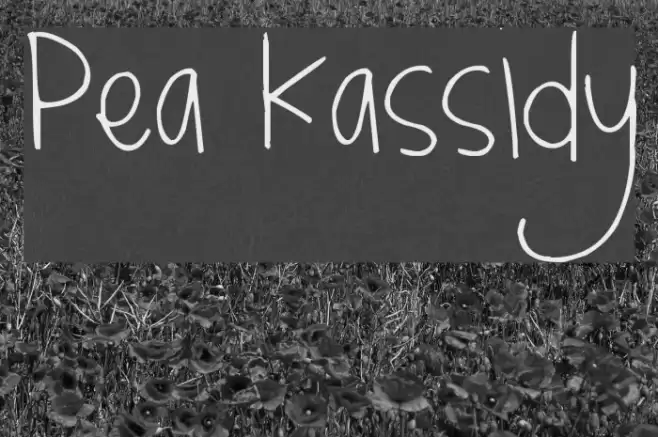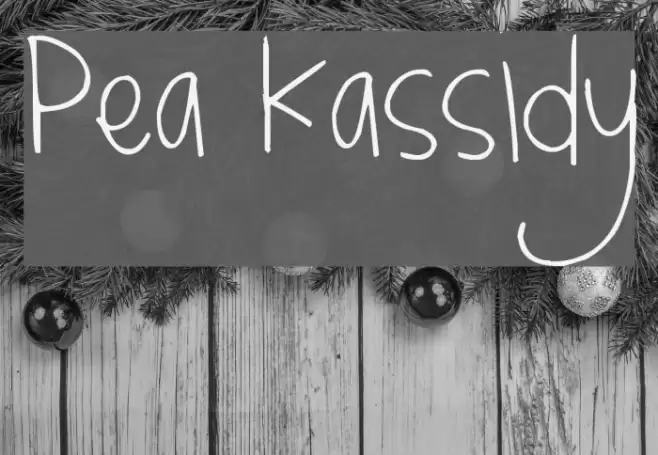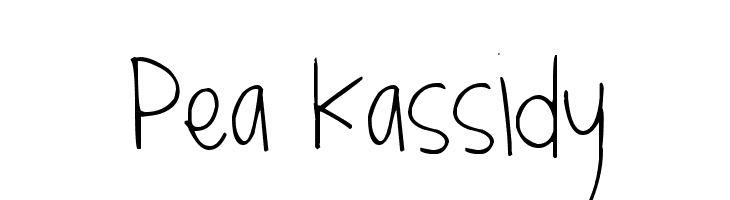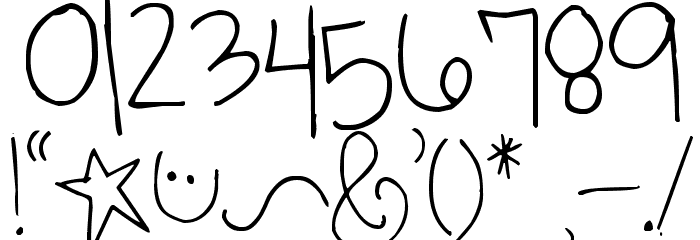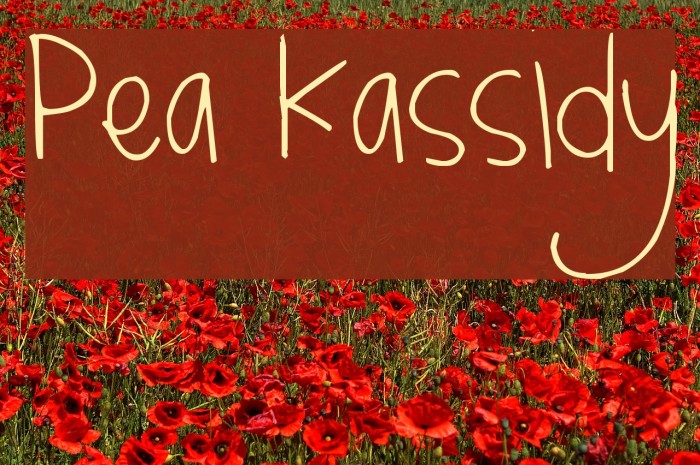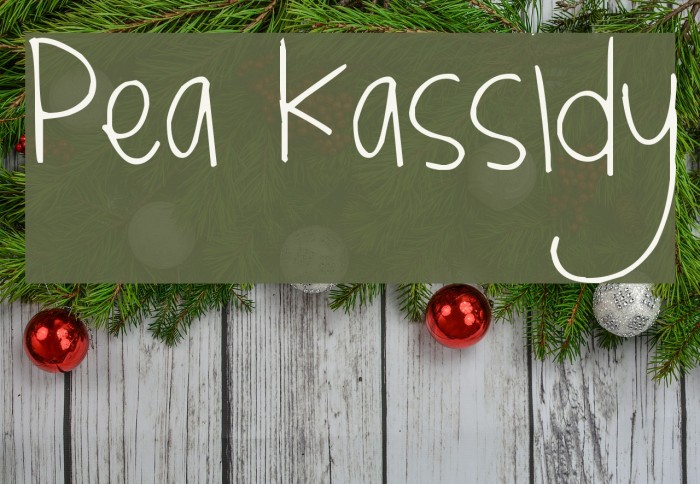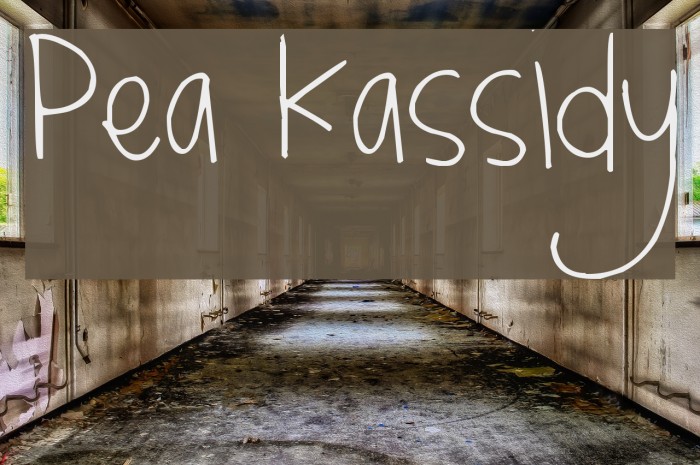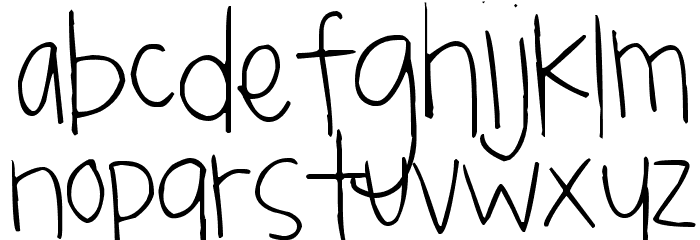
Pea Kassidy Font
Pea Kassidy Description
This playful and casual handwritten font features a whimsical and informal style, with each character exhibiting a unique and slightly irregular shape. The letters are tall and narrow, giving a sense of height and lightness. The strokes are consistent in width, providing a uniform appearance despite the hand-drawn aesthetic. The font includes both uppercase and lowercase letters, numbers, and a variety of special characters, making it versatile for different uses. Its charming and friendly appearance makes it ideal for projects that require a personal touch.
A playful, handwritten font with a whimsical and informal style from Uncategorized fonts.
- Proposed Projects: Ideal for greeting cards, children's books, personal blogs, and casual branding.
- Overall Style: Casual
- Use Case: Headlines, Informal text, Personal projects